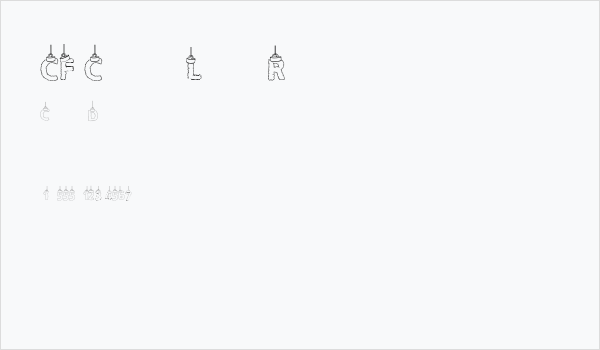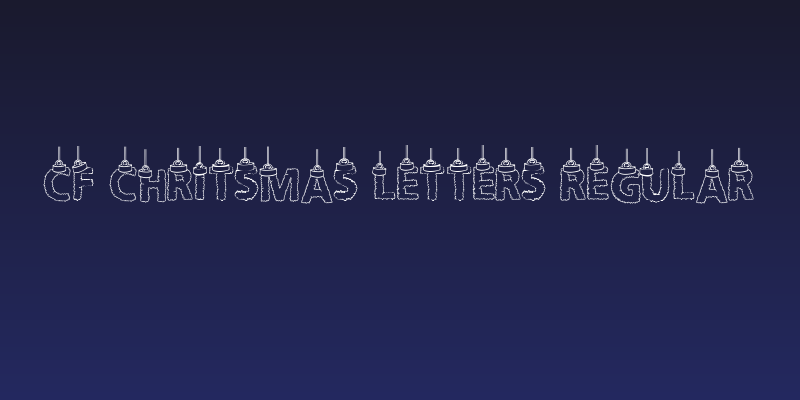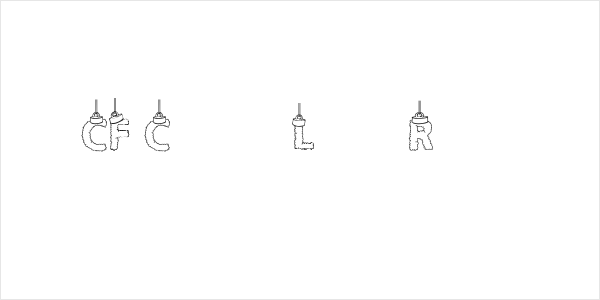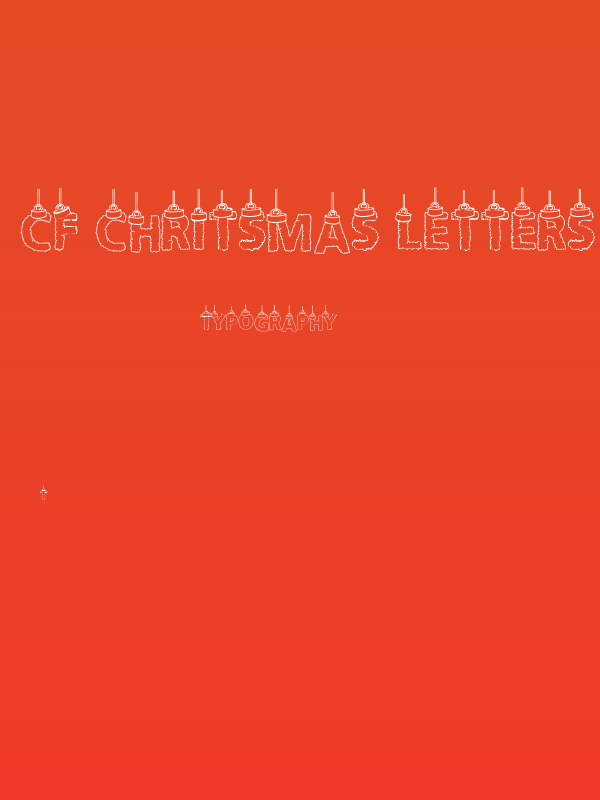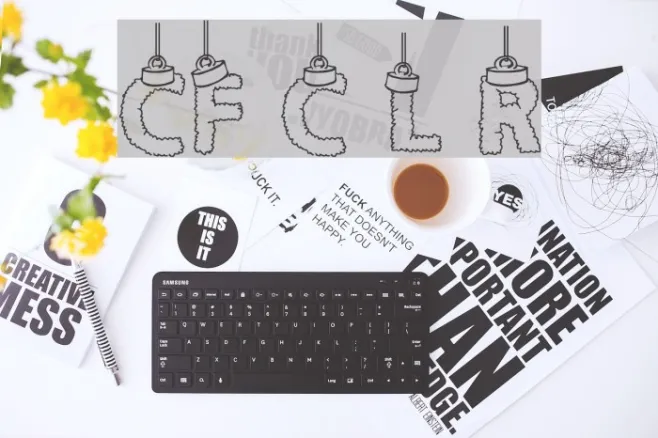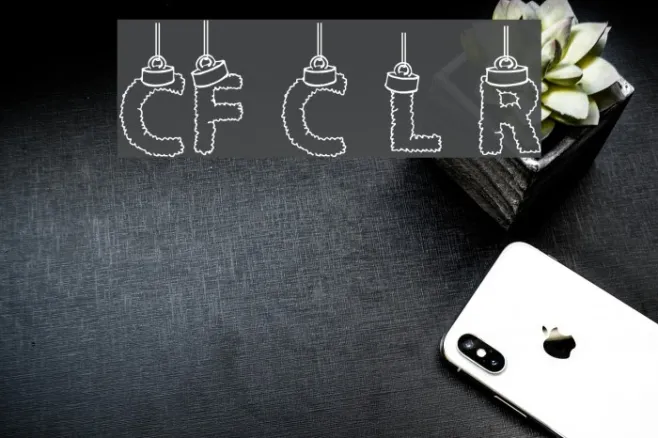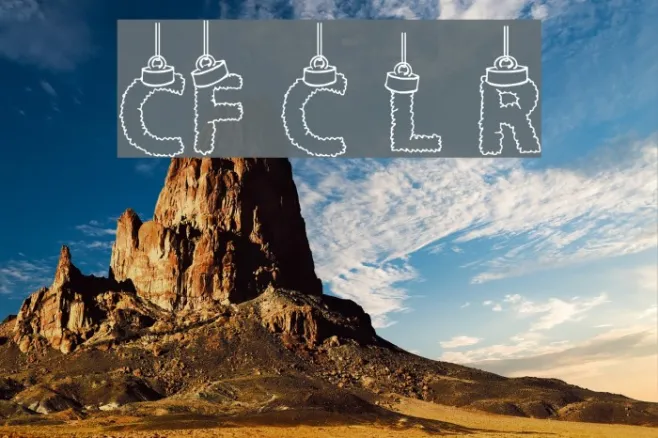
CF Chritsmas Letters Regular Font
CF Chritsmas Letters Regular Description
This playful and festive font features letters and numbers designed to resemble fluffy Christmas ornaments. Each character is adorned with a small cap and string, giving the appearance of hanging decorations. The strokes are bold and textured, mimicking the look of soft, fluffy material. The overall design is whimsical and captures the essence of holiday cheer, making it perfect for seasonal projects. The characters are evenly spaced, ensuring readability while maintaining a decorative flair.
| Proposed Projects | Ideal for holiday greeting cards, festive banners, Christmas-themed posters, and seasonal invitations. |